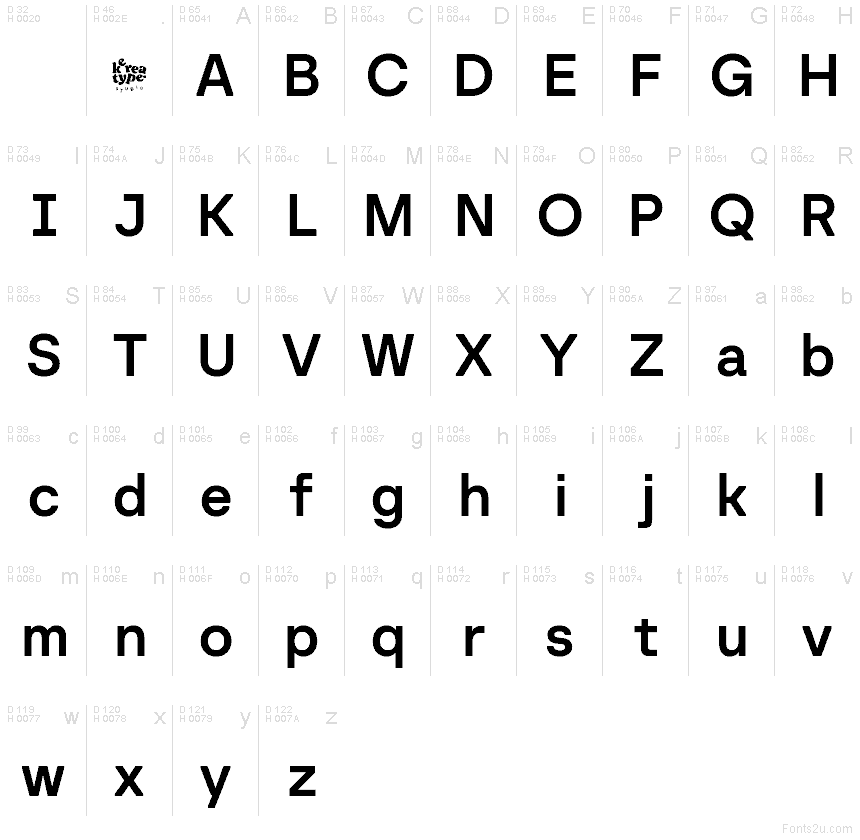
Baru Sans Demo Semi Bold
Baru Sans Semi Bold font by Kereatype Studio is a free sans serif font. Sitting in the sweet spot between sturdy and friendly, its smooth curves, wide counters, and even rhythm give text real presence without shouting. The Semi Bold cut in the Baru Sans family lands with a confident thump, yet stays crisp and breathable at smaller sizes.
Using Baru Sans Semi Bold solves that common brief: headings and UI labels that must pop and stay legible. It shines on app interfaces, navigation bars, slide decks, logo wordmarks, packaging, social posts, and clean signage. This free font holds weight on its own; pair it with Baru Sans Regular for paragraphs and keep letterspacing tight for headlines.